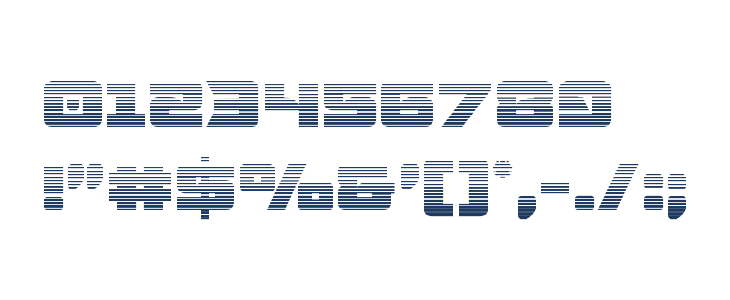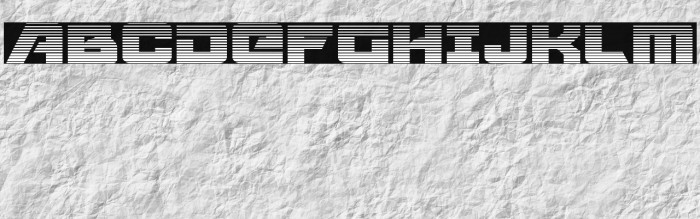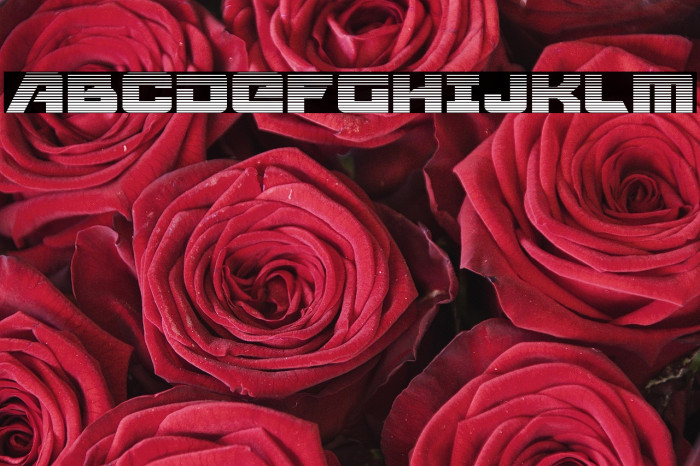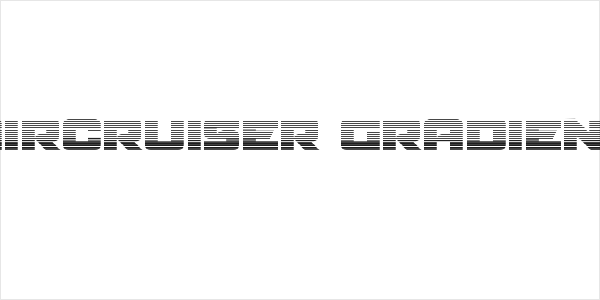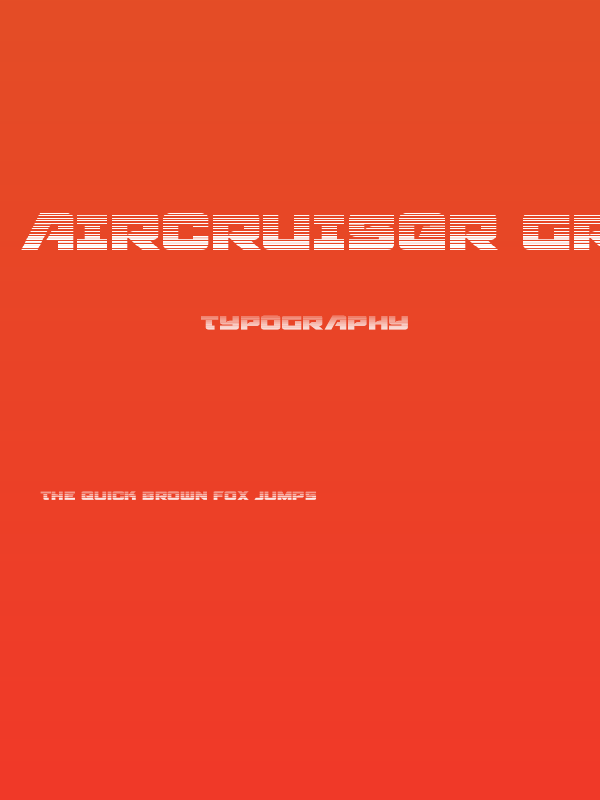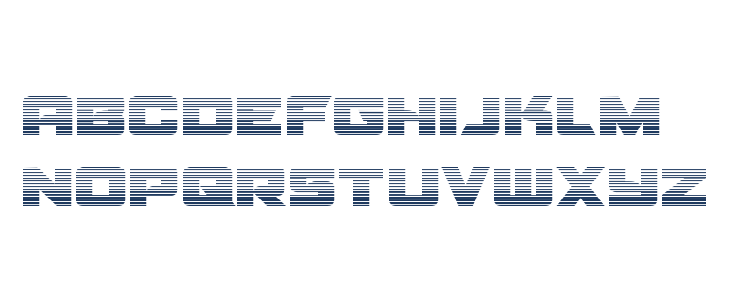
Aircruiser Gradient Font
Aircruiser Gradient Description
This font features a bold, futuristic design with a distinct gradient effect created by horizontal lines running through each character. The uppercase and lowercase letters maintain a consistent width, giving a uniform appearance. The characters are constructed with sharp angles and straight lines, contributing to a modern and technological feel. The numerals and special characters follow the same design principles, ensuring cohesion across all elements. This font is particularly striking due to its unique line pattern, which adds depth and dimension to the text.